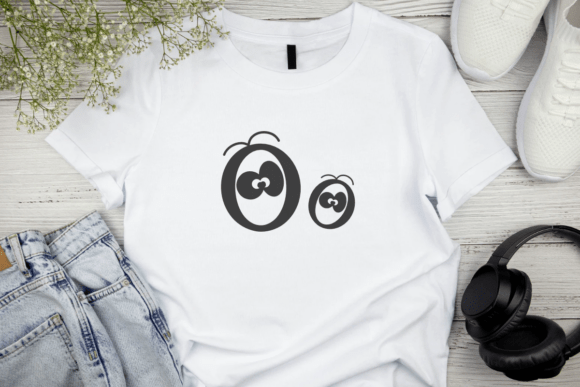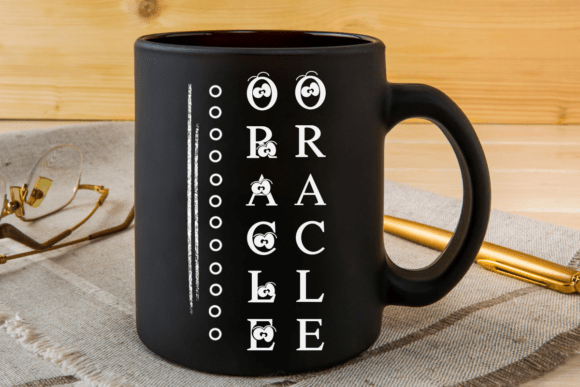
Introduction to Magic Eye Font
Introducing Magic Eye, an enchantingly decorative font that effortlessly adds charm to your daily jottings, diary entries, or thoughtful greeting cards.
Yet, its versatility extends beyond the personal; it can be used to add a touch of whimsy and character to a wide array of designs Grace your banners, content, coffee mugs, and cards with this aesthetic typeset.
Key Features of Magic Eye Font
Why Choose Magic Eye Font?
Magic Eye Font offers exceptional quality and versatility, making it a valuable addition to your design toolkit. Whether you’re creating for personal projects or commercial use, Magic Eye Font delivers professional results.